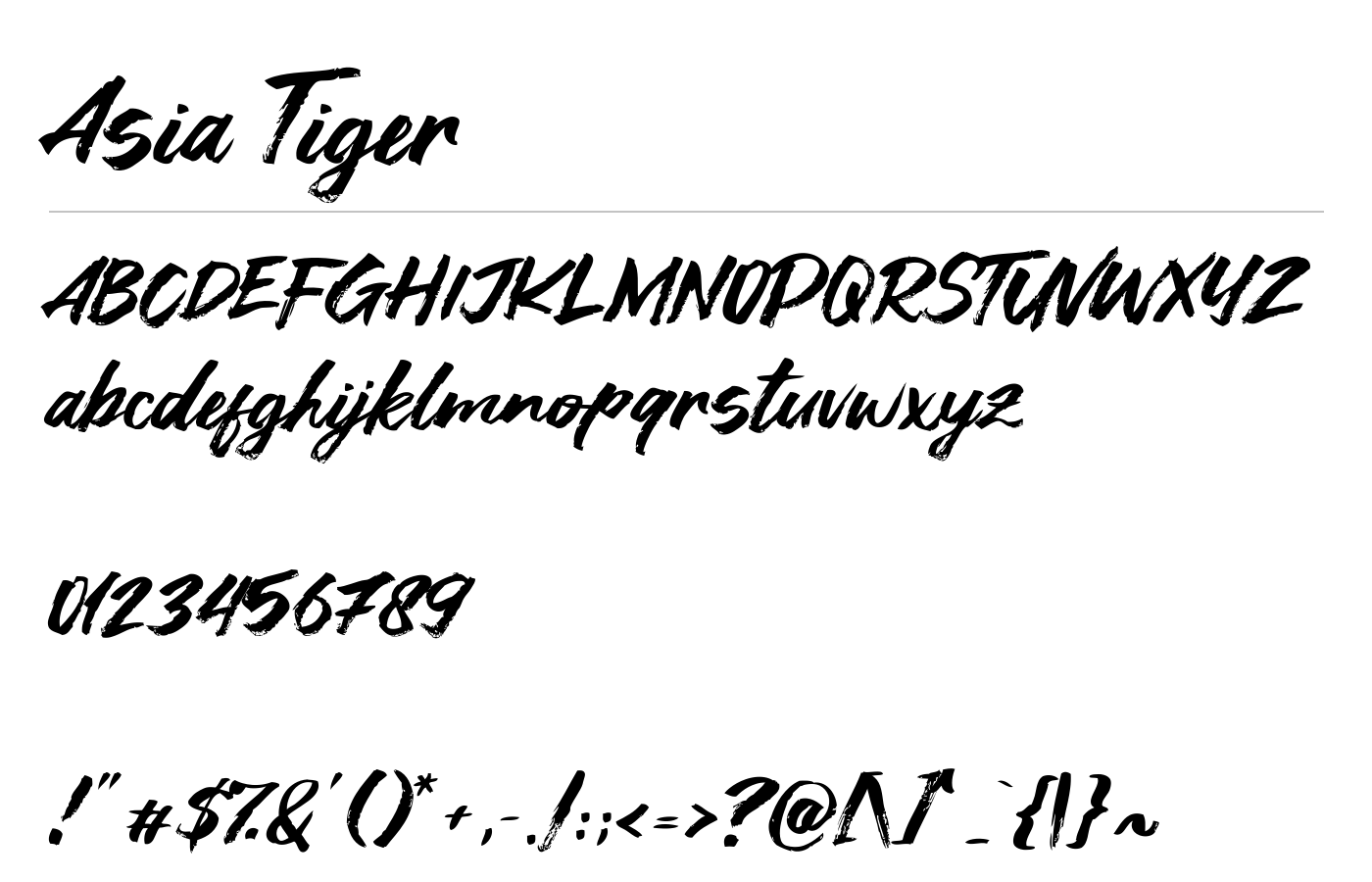
Asia Tiger is a bold and energetic brush script font with a rough, textured style that evokes a sense of raw creativity and spontaneity. Its dynamic strokes and lively letterforms make it perfect for bold headlines, logos, and creative projects that want to convey a handcrafted, expressive feel. This font works well for branding, posters, and packaging where a strong, artistic personality is desired.
Asia Tiger Font
About Asia Tiger Font
| Font family | Asia Tiger Font |